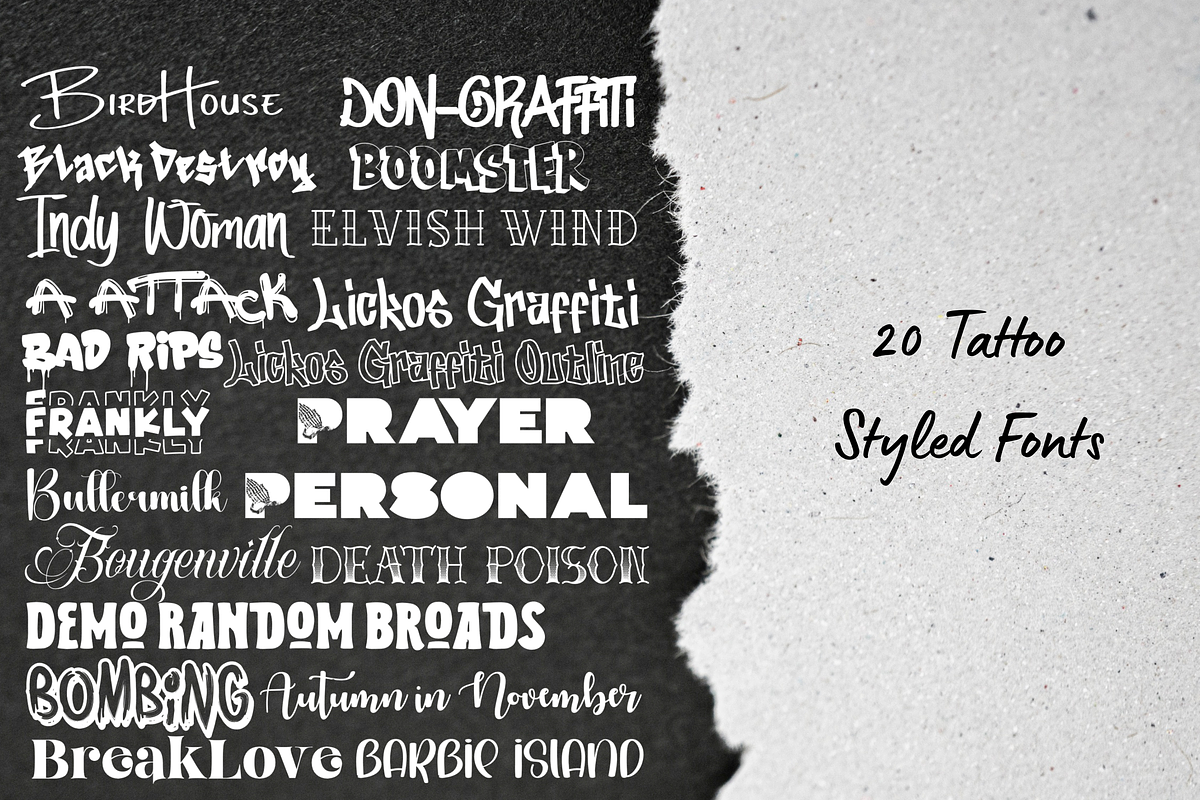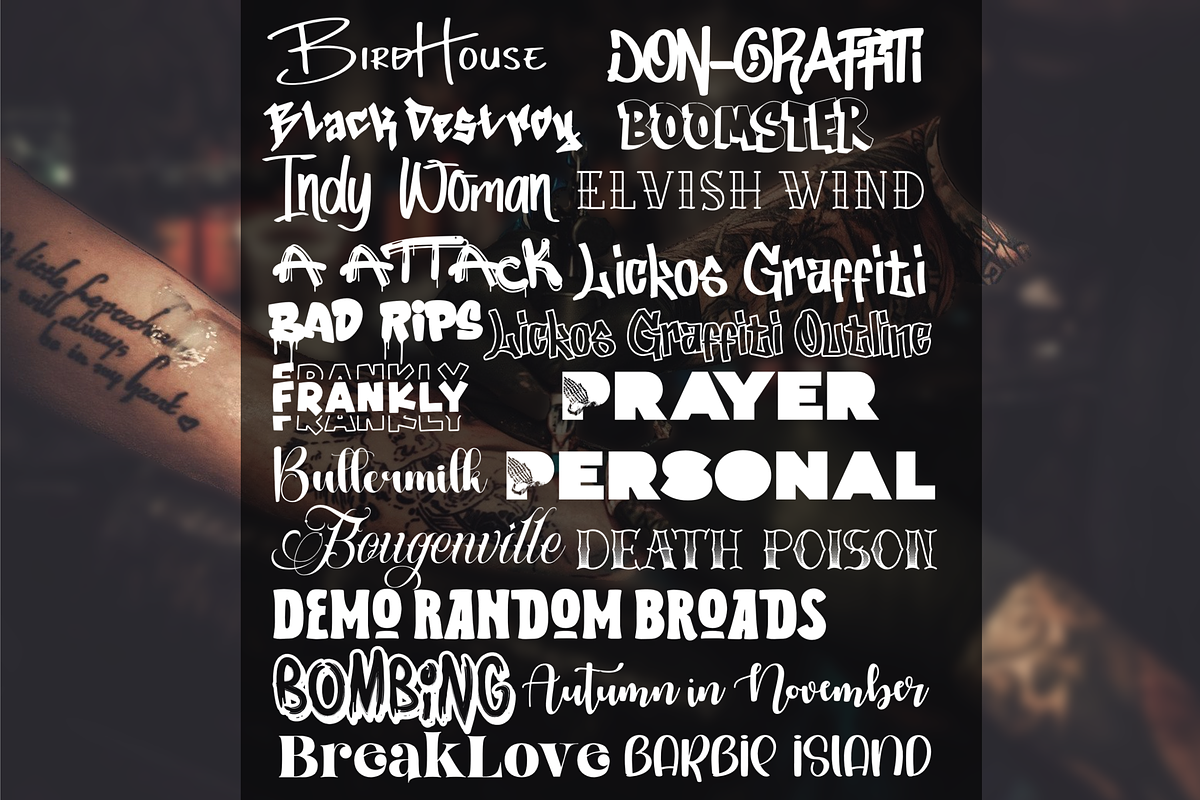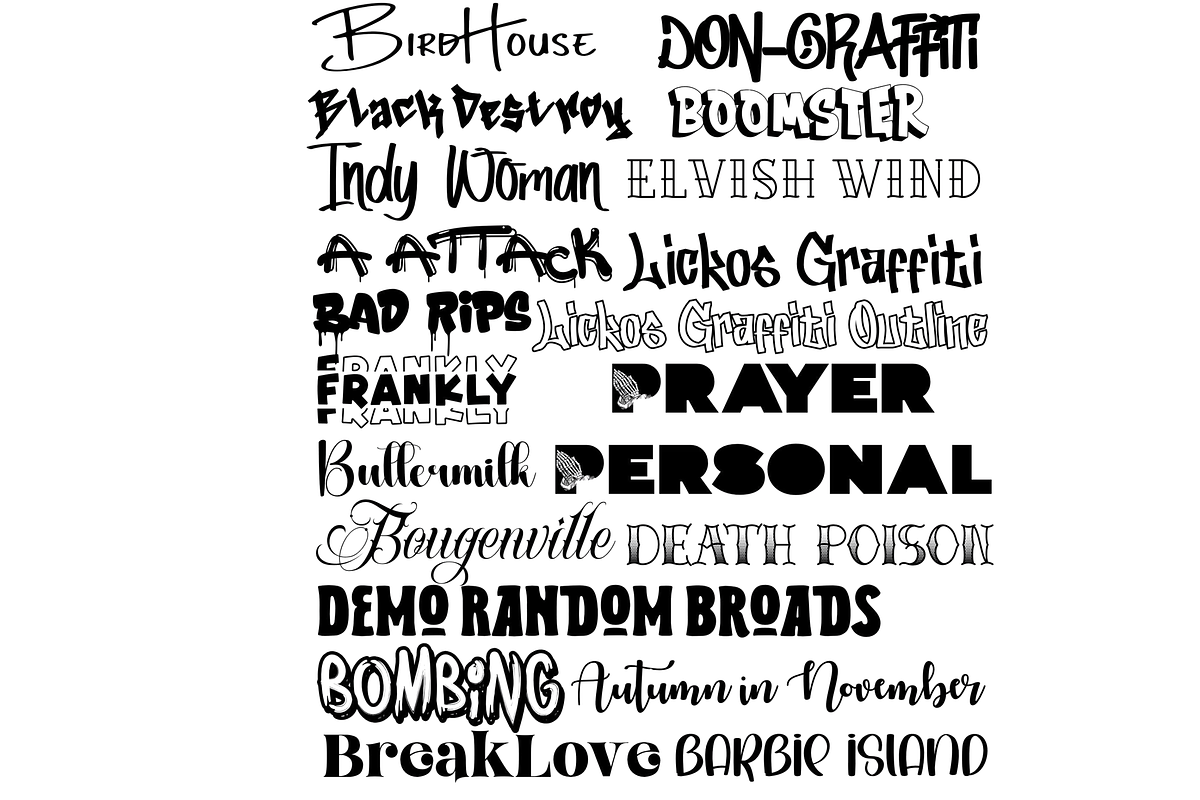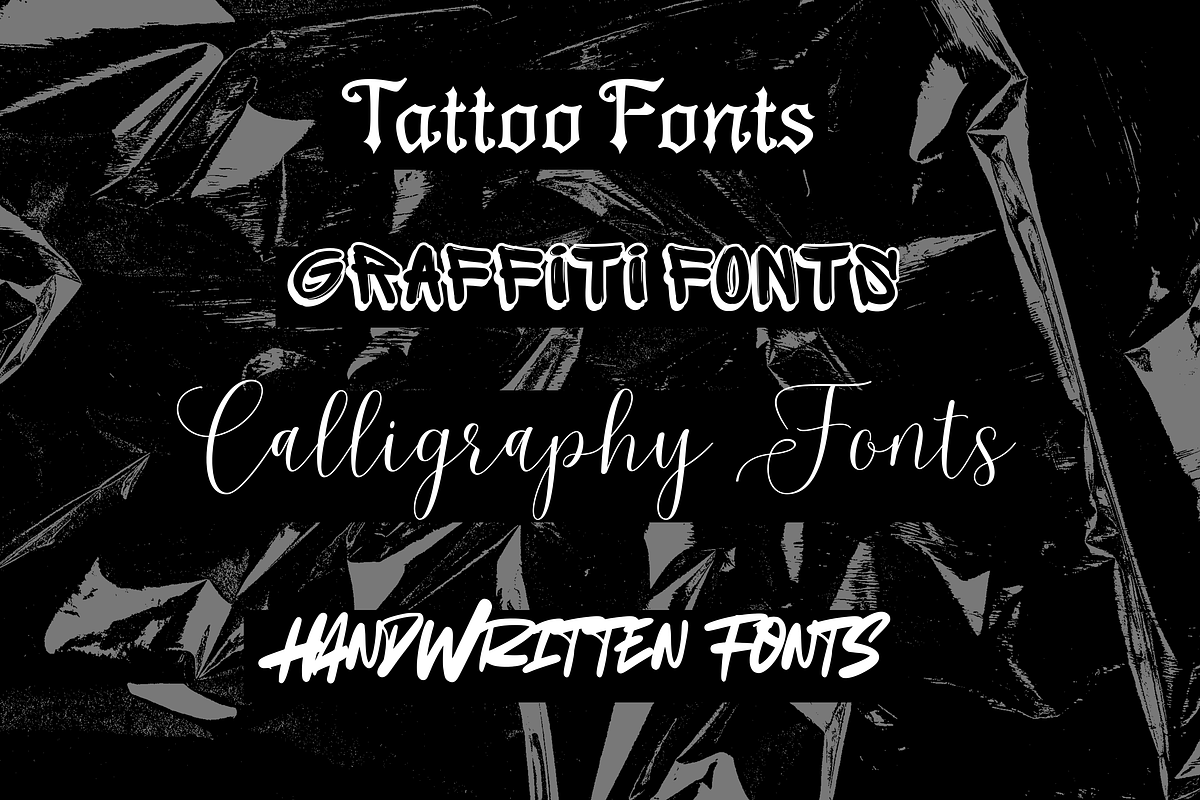
20 Tattoo & Graffiti Fonts Bundle
20+ Handwritten & Graffiti Fonts Bundle | Brush, Script, Street Style Typeface Pack
Level up your designs with this bold and versatile 20+ font bundle featuring a mix of handwritten, brush, graffiti, and decorative styles. Perfect for creators who want personality, edge, and uniqueness in every project.
This collection includes a wide range of aesthetics—from edgy street-style lettering to elegant scripts and playful handwritten fonts—making it ideal for both modern and artistic designs.
- 20+ unique fonts (as shown in preview)
- Mix of styles: graffiti, brush, script, handwritten, decorative
- Diverse styles in one bundle = more creative flexibility
- Trendy, bold, and eye-catching fonts